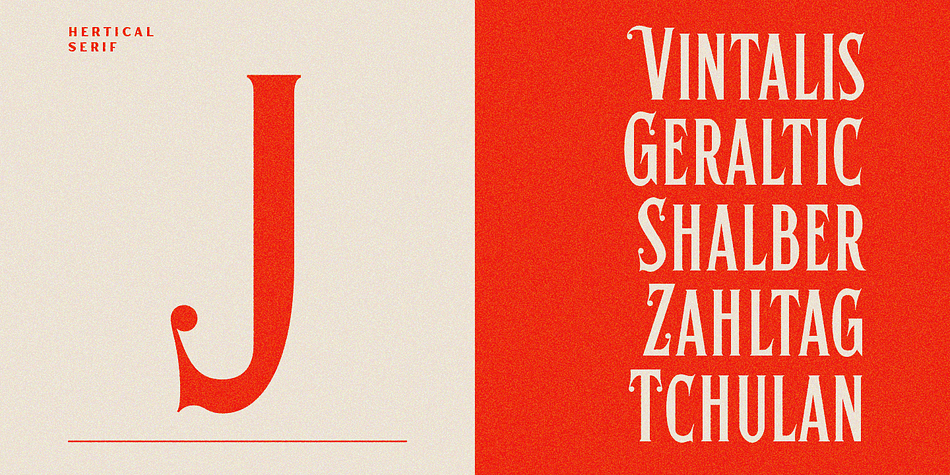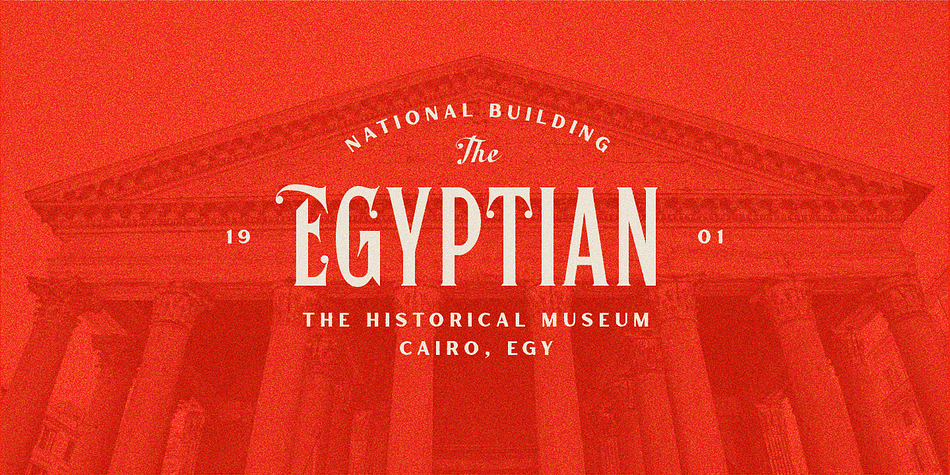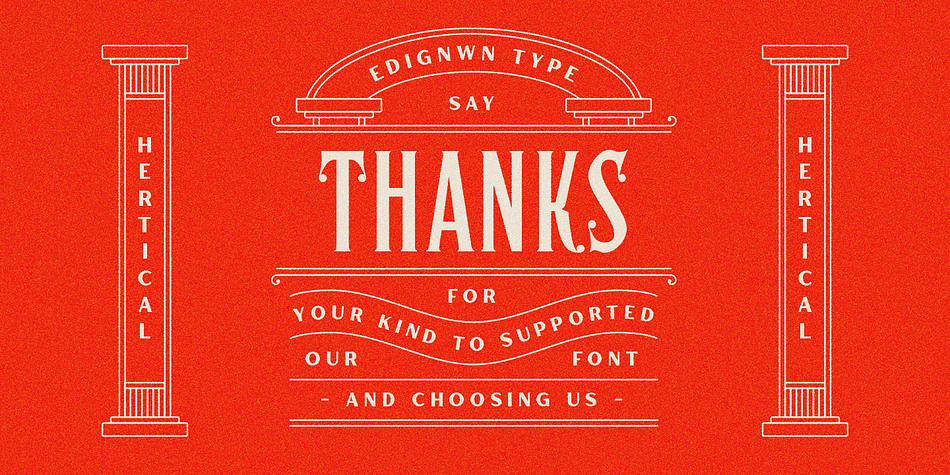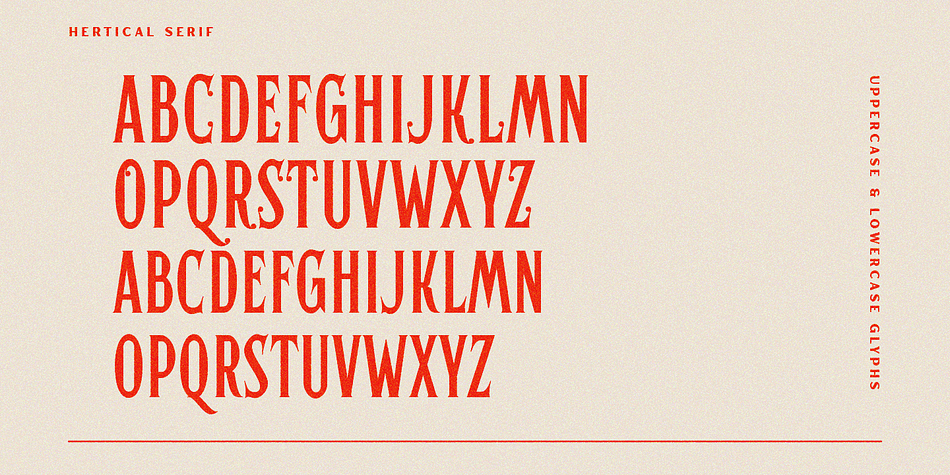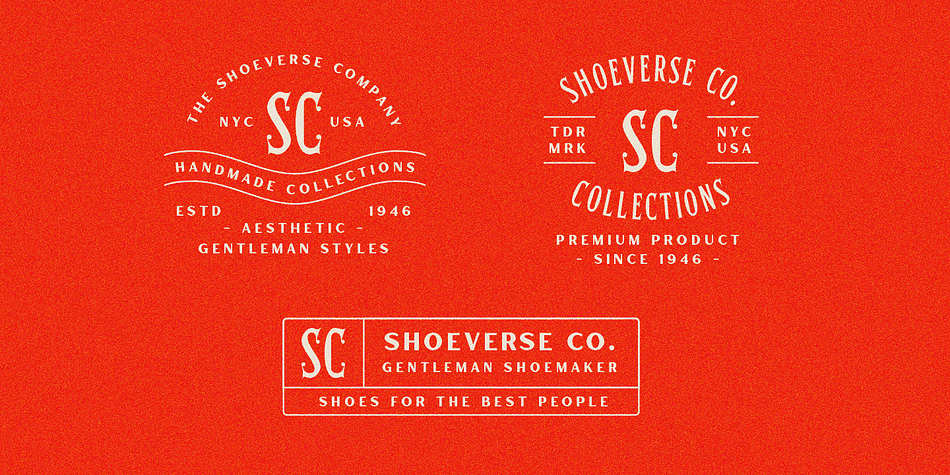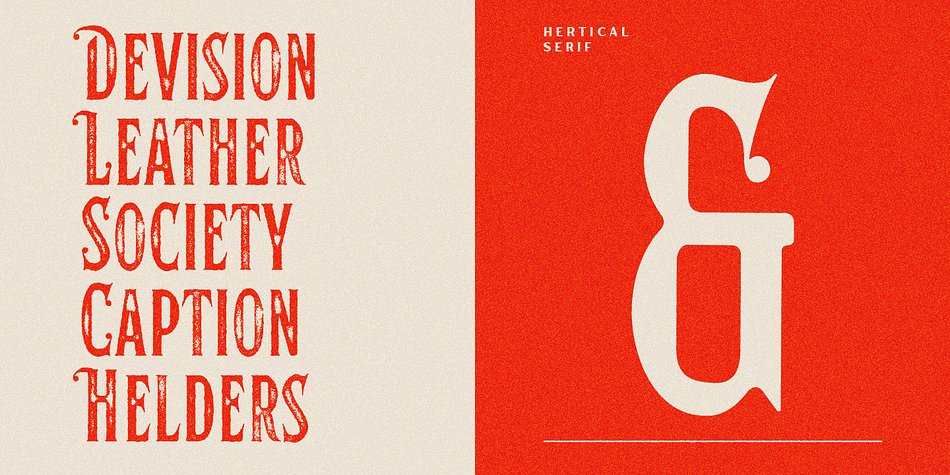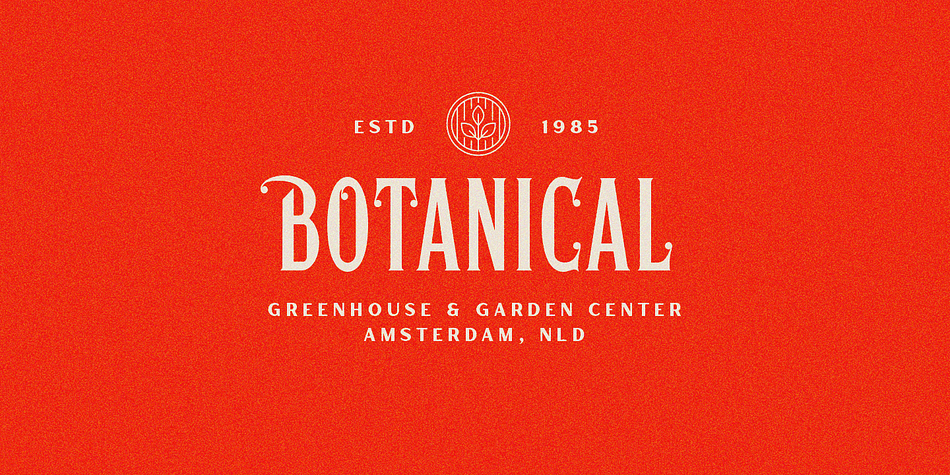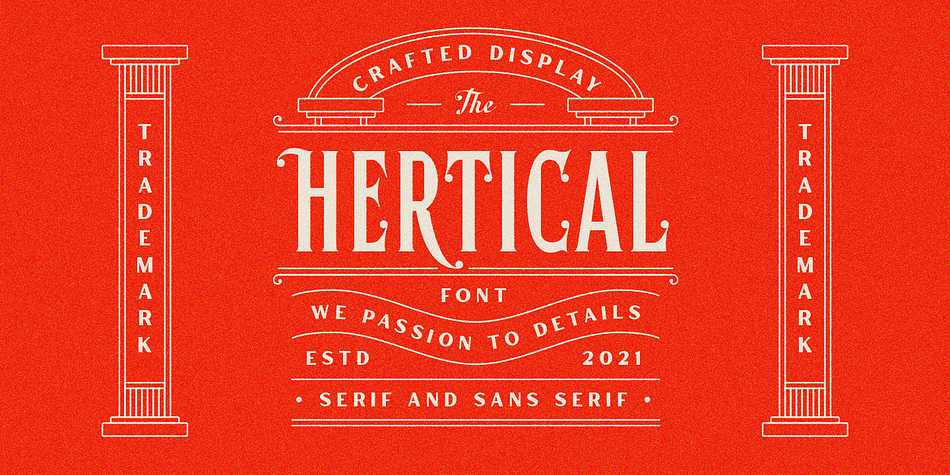
Hertical
Designed by Edi Gunawan, Hertical is a display and sans serif font family. This typeface has eight styles and was published by Edignwn Type.
Edignwn Type release a crafted display font it’s called Hertical. Hope you are enjoy the design of font. Hertical come with two typefaces, serif and sans serif. Every typeface contains four styles (regular, smooth, rough and texture). This matches applies in some designs such as the logotype, poster, label, badge, packaging, branding, quotes and more custom design.
Hertical includes :
- 2 typefaces (serif and sans serif)
- 4 style typefaces (regular, smooth, rough and texture)
- All-caps, numeral, symbol and punctuation
- 2 sets alternates on serif font